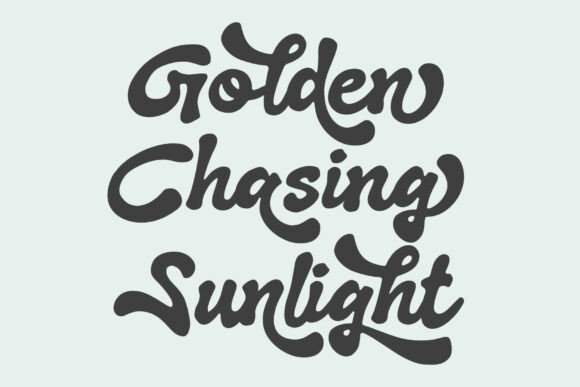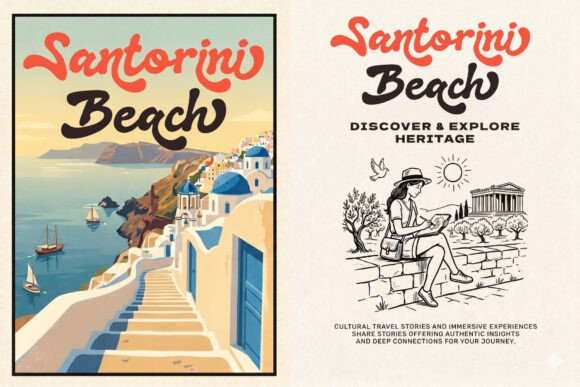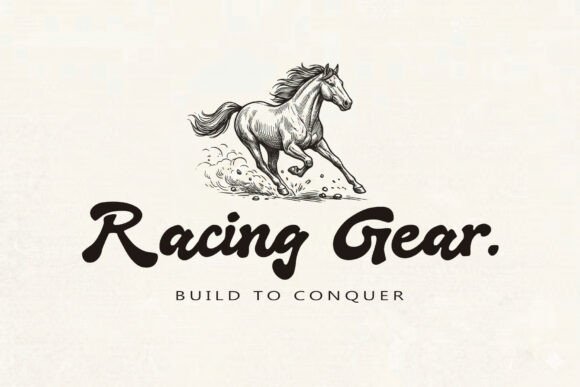
Introduction to Megiula Font
Megiula is a smooth and modern script font designed to bring elegance and personality into your creative projects.
With its rounded letterforms, flowing curves, and natural handwritten feel, Megiula delivers a perfect balance between playful charm and professional style Carefully crafted with attention to detail, this font features beautiful connections and a seamless flow, making it ideal for eye-catching designs that require a soft yet confident touch.
Key Features of Megiula Font
Why Choose Megiula Font?
Megiula Font offers exceptional quality and versatility, making it a valuable addition to your design toolkit. Whether you’re creating for personal projects or commercial use, Megiula Font delivers professional results.